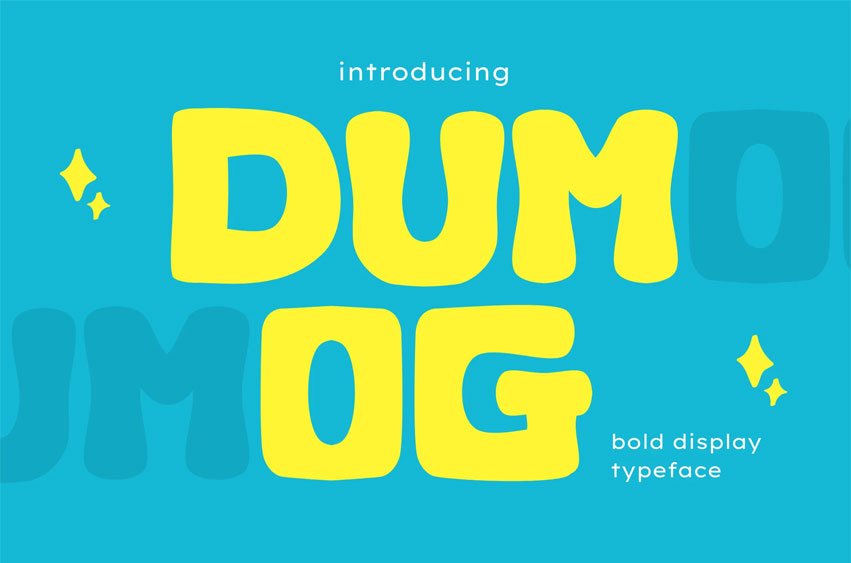
Dumog Font is a bold playful display typeface crafted for designers seeking a long-tail solution for friendly branding with rounded, bouncy letterforms. Its soft curves, wide proportions, and elastic baseline create a lively aesthetic that fits perfectly in Instagram posts, food promotions, kids products, and colorful packaging. The typeface carries a joyful, expressive vibe, making every headline feel fun, approachable, and instantly readable.
Its chunky geometry gives each character a confident silhouette, while the rounded edges soften the tone—ideal for snack ads, dessert menus, festival posters, or bright social campaigns. The visual personality feels both modern and playful, giving your designs emotional warmth and high visibility.
Use DUMOG when you need a type style that instantly captures attention and creates a delightful, feel-good atmosphere. Whether you’re designing food festival posters, kids’ product packaging, dessert shop branding, editorial headers, or social content for playful product launches, this typeface helps your message stand out with joyful confidence. Its friendly tone supports brands aiming to appear fun, colorful, energetic, and accessible, making it a natural fit for marketing teams and creators who want designs that pull viewers in at first glance.
Key Features : *Lively Display Personality Rounded shapes and chunky proportions bring a bright, friendly feel to any project.
- Strong Visual Presence Perfect for bold titles, menu boards, festival promotions, and colorful brand campaigns.
- Highly Versatile for Fun Markets Designed for food, kids, dessert, festival, and playful lifestyle visuals.
- Smooth Letterflow Bouncy baseline and soft curves ensure a warm, expressive rhythm across words and headlines.
- Designer-Focused Usability Created to make your branding or campaigns feel more memorable, joyful, and visually distinct.